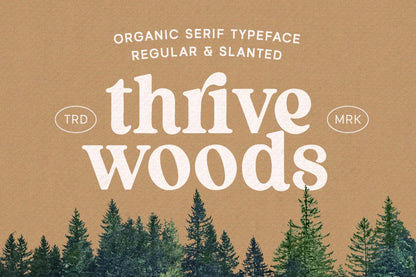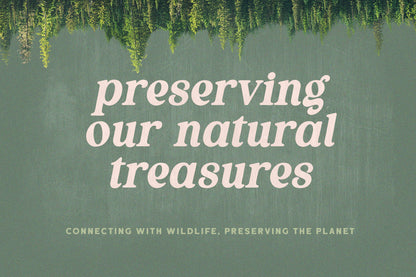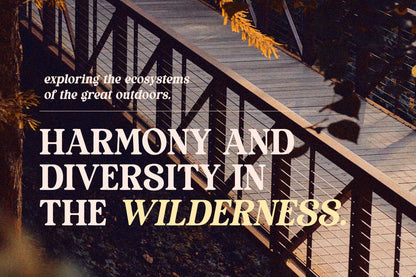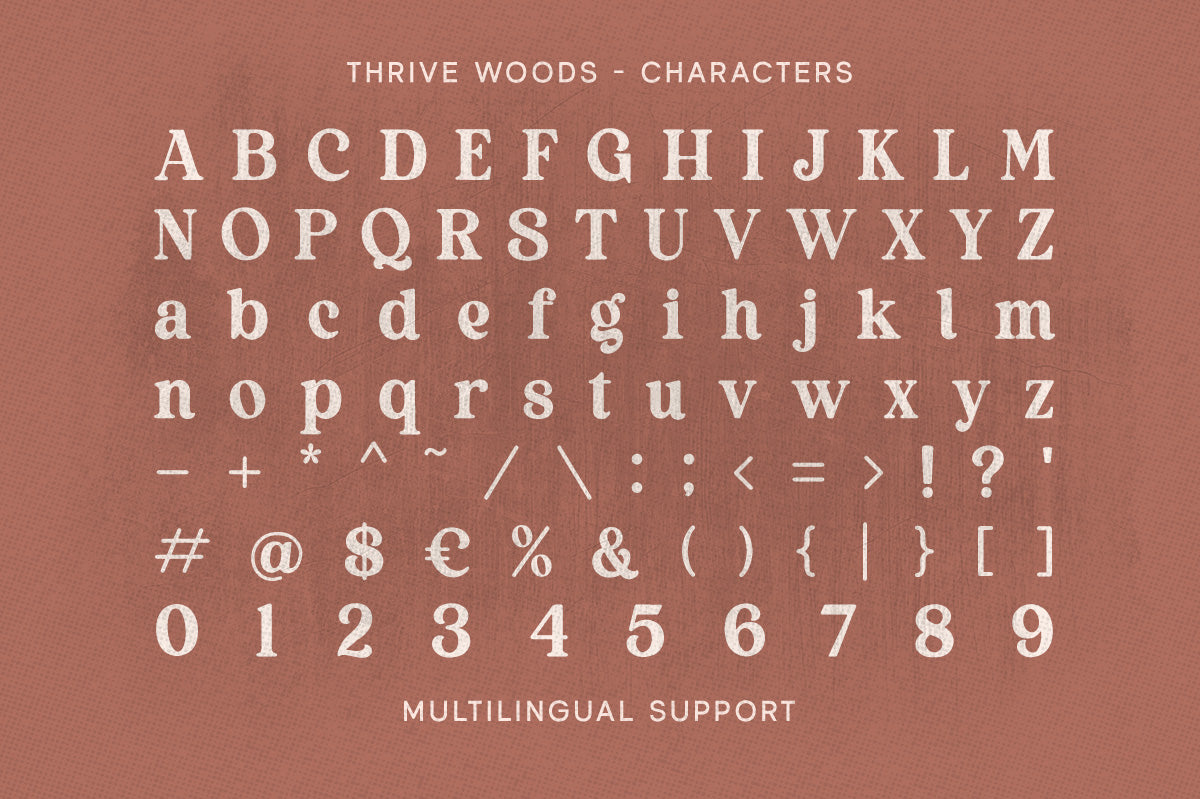
Thrive Woods - Organic Serif
Thrive Woods is an organic serif with stylish looks. This font duo is purposely made for headlines, display, or logotypes, and signatures that need a standout appearance. This font is perfectly designed to be applied in various formal forms, such as logos, invitations, labels, magazines, books, greeting/wedding cards, packaging, fashion, makeup, stationery, novels, or any type of advertising purpose.
Features :
Uppercase & lowercase
Numbers and punctuation
Alternates & Ligatures
Multilingual